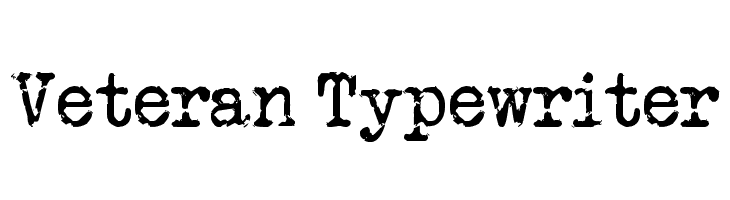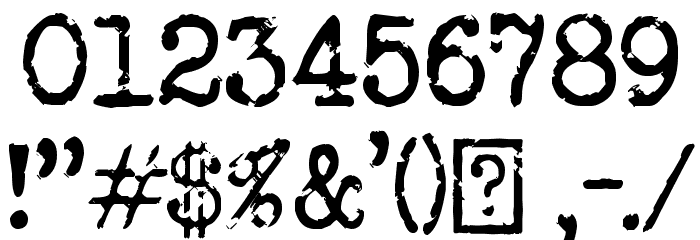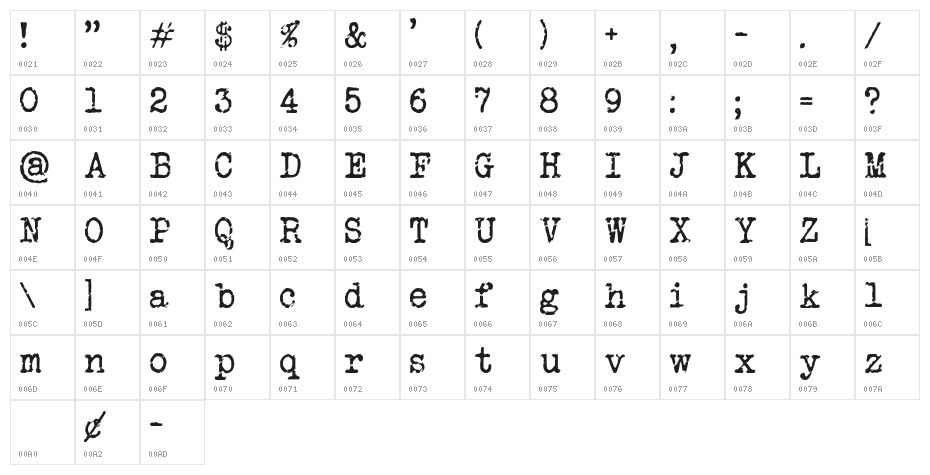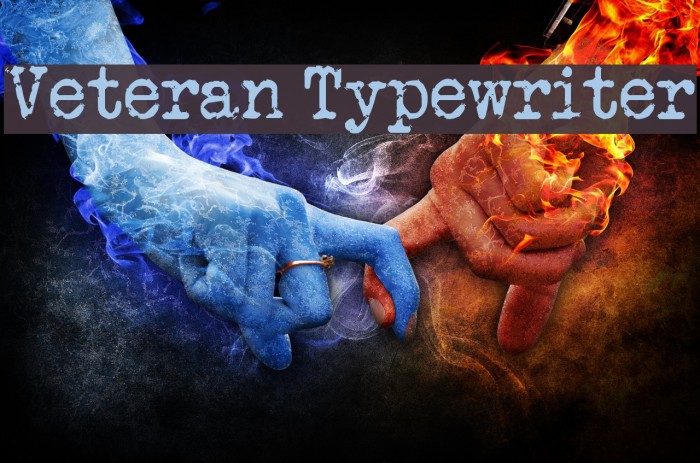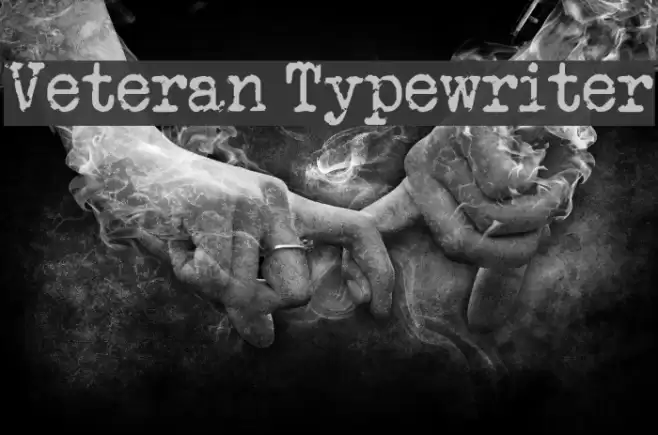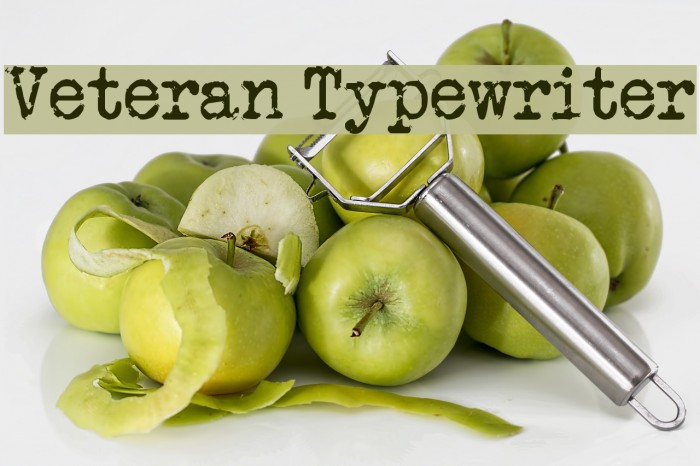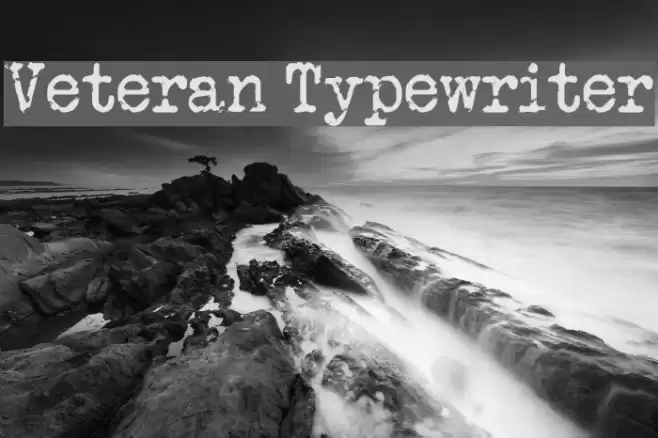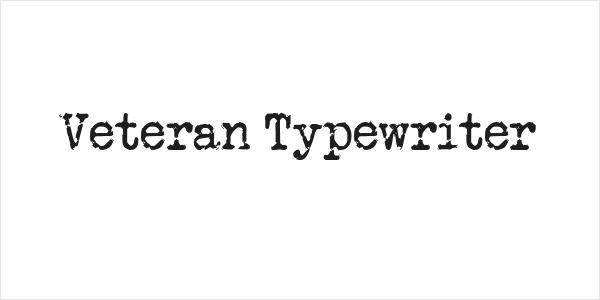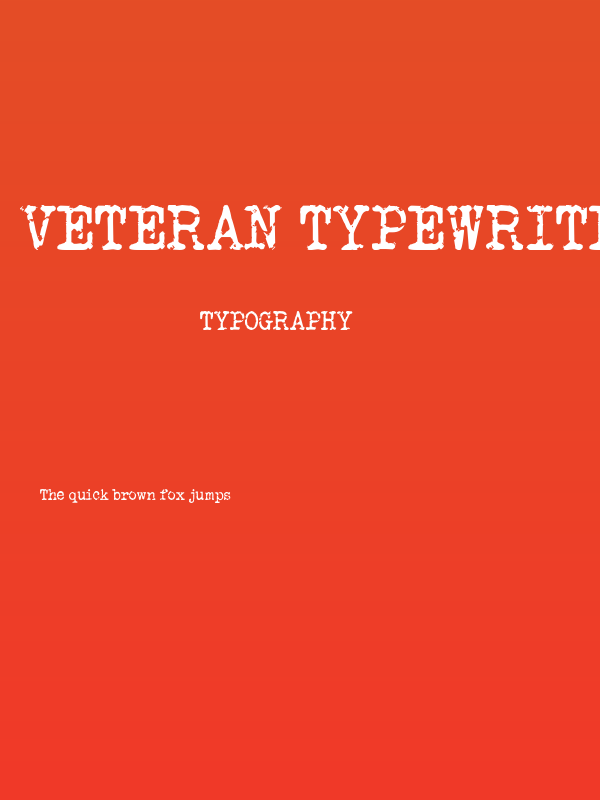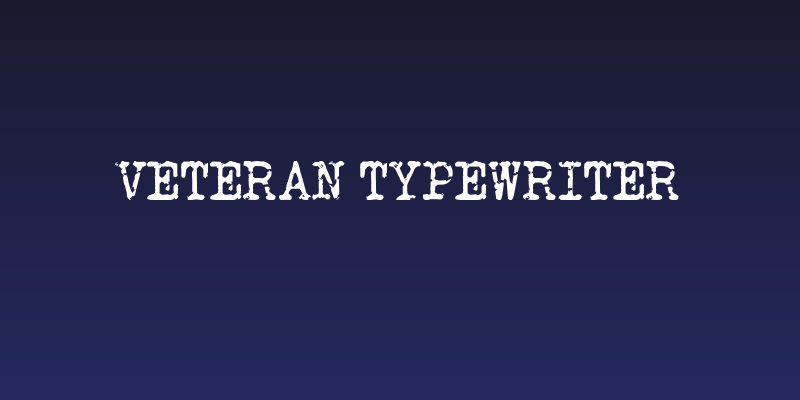
Veteran Typewriter Font
Veteran Typewriter Description
This font exudes a rugged, vintage typewriter aesthetic, characterized by its distressed and worn appearance. Each character appears as if it has been typed with an old, well-used typewriter, giving it a nostalgic and authentic feel. The letters are bold and have a slightly uneven texture, adding to the charm and uniqueness of the font. The uppercase and lowercase letters are consistent in style, with numbers and special characters maintaining the same distressed look. This font is perfect for projects that require a retro or vintage touch, such as posters, invitations, or branding materials that aim to evoke a sense of history and character.
| Proposed Projects | Ideal for vintage-themed posters, retro branding, invitations, and creative projects requiring a historical touch. |